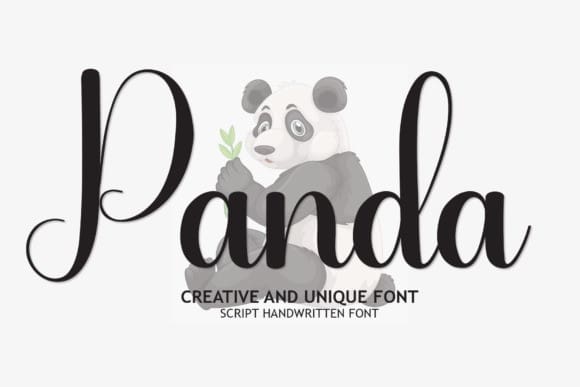
Panda Script Font
Panda Script Font, is a sweet and friendly handwritten font. Fresh and neat, this font is ideal for writing wedding invitations, cards, or any other design that might need a fun touch!